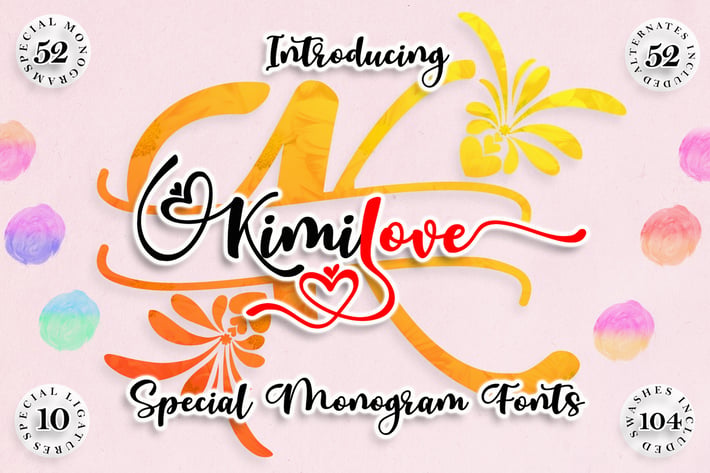
Kimilove // Monogram Script Font
Kimilove // Monogram Script Font is a font with awesome and classy taste, comes with a natural touch, so many ligatures. We keep this font looks classy, readable, elegant, stylish, catchy, and absolutely easy to use.
Each font has:
Stunning MONOGRAM style
Stylish handwritten style
Swash (ending tail) for Uppercase and Lowercase
Titling (beginning tail) for Lowercase
Alternate Sets for Uppercase and Lowercase
Each font has:
Stunning MONOGRAM style
Stylish handwritten style
Swash (ending tail) for Uppercase and Lowercase
Titling (beginning tail) for Lowercase
Alternate Sets for Uppercase and Lowercase